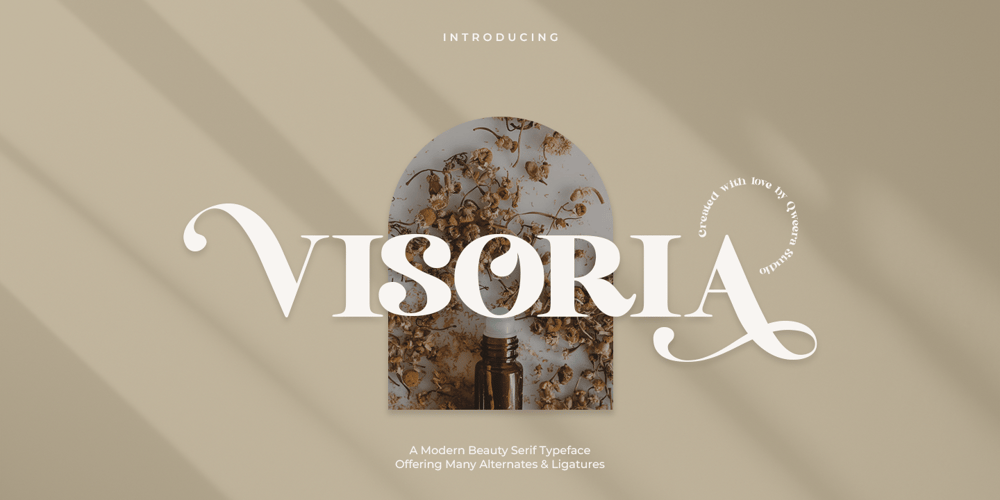
Visoria
Visoria font
Visoria Font Family was designed by Idhham Cholid Rikzano Yahya and published by Qweera Studio. Visoria contains 2 styles and family package options. Visoria is a modern elegant serif font with stylish alternates and ligatures, providing ultimate design flexibility. Perfect for branding, posters, magazines, and print projects, this typeface brings sophistication and timeless beauty to any creation. Ideal for designers seeking a luxurious and refined aesthetic.Here’s what you get: All Multilingual symbol Opentype features ( ligature, alternate ) Accessible in the Adobe Illustrator, Adobe Photoshop, Adobe InDesign, even work on Microsoft Word. PUA Encoded Characters – Fully accessible without additional design software. Multilingual character supports : (Afrikaans, Albanian, Catalan, Croatian, Czech, Danish, Dutch, English, Estonian, Finnish, French, German, Hungarian, Icelandic, Italian, Lithuanian, Maltese, Norwegian, Polish, Portuguese, Slovenian, Spanish, Swedish, Turkish, Zulu)Follow my shop for upcoming updates, and for more of my work.Thank you!Qweera Studio